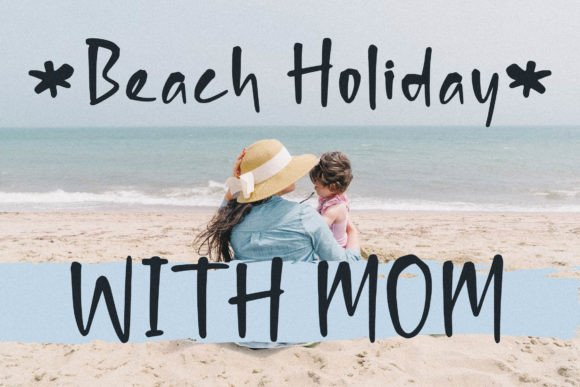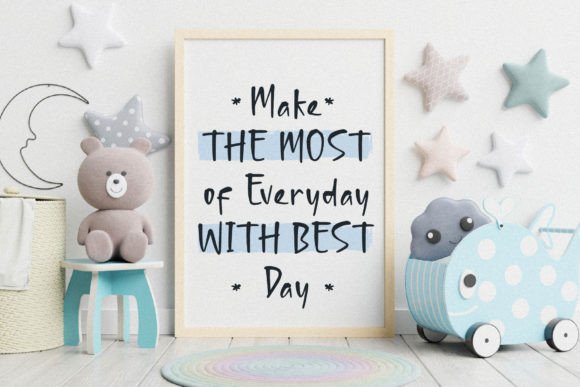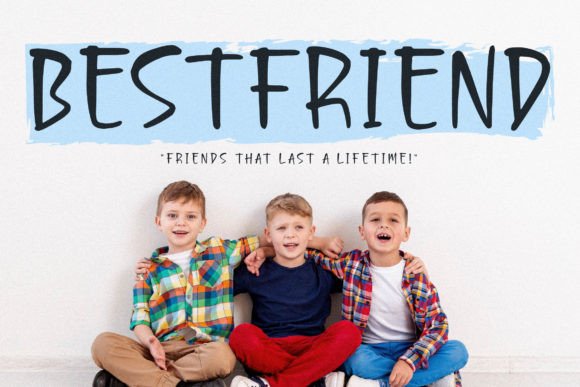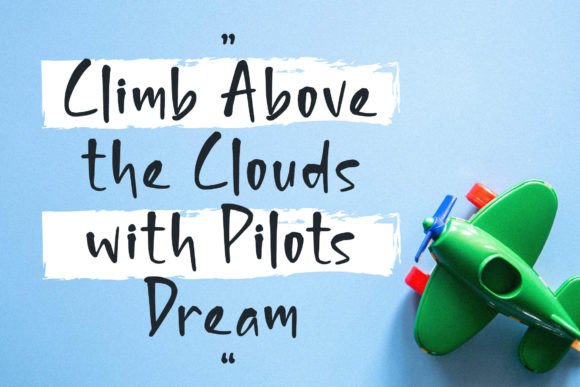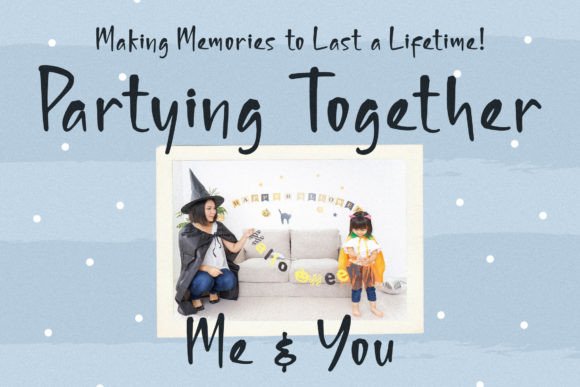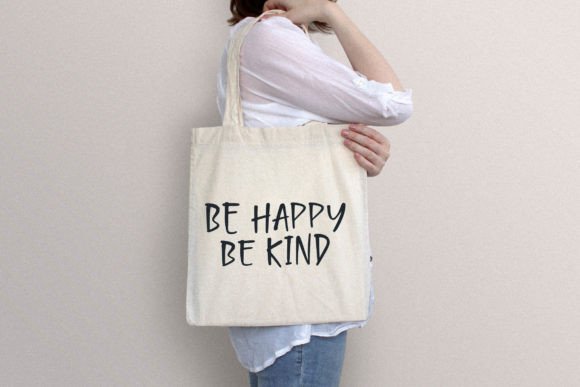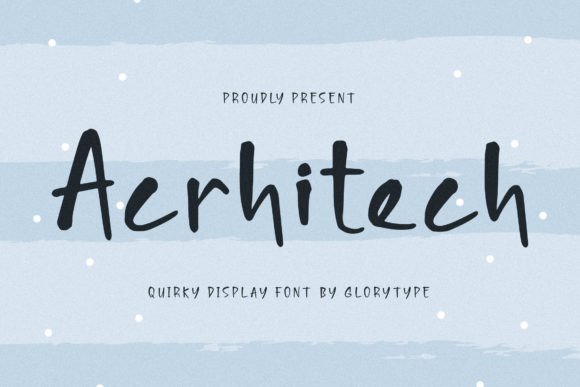
The Elusive Perfect Font: My Encounter with Acrhitech
I’ll never forget the frustration of scrolling through font after font, searching for the perfect match for my latest design project. My client wanted something elegant, yet playful; delicate, yet impactful. I tried font after font, but nothing seemed quite right. That was until I stumbled upon Acrhitech, a beautiful handwritten font that stole my heart. In this article, I’ll share my experience with Acrhitech, its features, and how to make the most of it in your designs.
Acrhitech: A Delicate, Elegant, and Flowing Handwritten Font
Acrhitech is a stunning handwritten font that exudes elegance and sophistication. Its delicate, flowing lines make it perfect for a wide range of designs, from wedding invitations to branding materials. The font’s well-balanced characters ensure that it pairs well with various design elements, making it a versatile choice for designers, crafters, and creative hobbyists.
The Good ✨
- ✅ Elegant and sophisticated design
- ✅ Delicate, flowing lines
- ✅ Well-balanced characters
- ✅ Versatile and pairs well with various design elements
The Not-So-Good 🤔
- ⚠️ Limited use in very bold or dramatic designs
- ⚠️ May not be the best choice for very small font sizes
- Experiment with OpenType features, such as glyphs and stylistic alternates, to add visual interest
- Explore OpenType features, such as glyphs and stylistic alternates, to add visual interest
The Story Behind Acrhitech: Designer Inspiration
Acrhitech was designed with the intention of creating a beautiful, elegant, and flowing handwritten font. The designer aimed to craft a font that would be perfect for a wide range of designs, from wedding invitations to branding materials. With its delicate lines and well-balanced characters, Acrhitech has become a popular choice among designers and crafters.
| Font Name | Acrhitech Font |
| Author | Glorytype Studio |
| What is Acrhitech font? | Acrhitech is a delicate, elegant, and flowing handwritten font. |
| Is Acrhitech suitable for body text? | Acrhitech is best used for headings and titles, but can be used for body text in certain design contexts. |